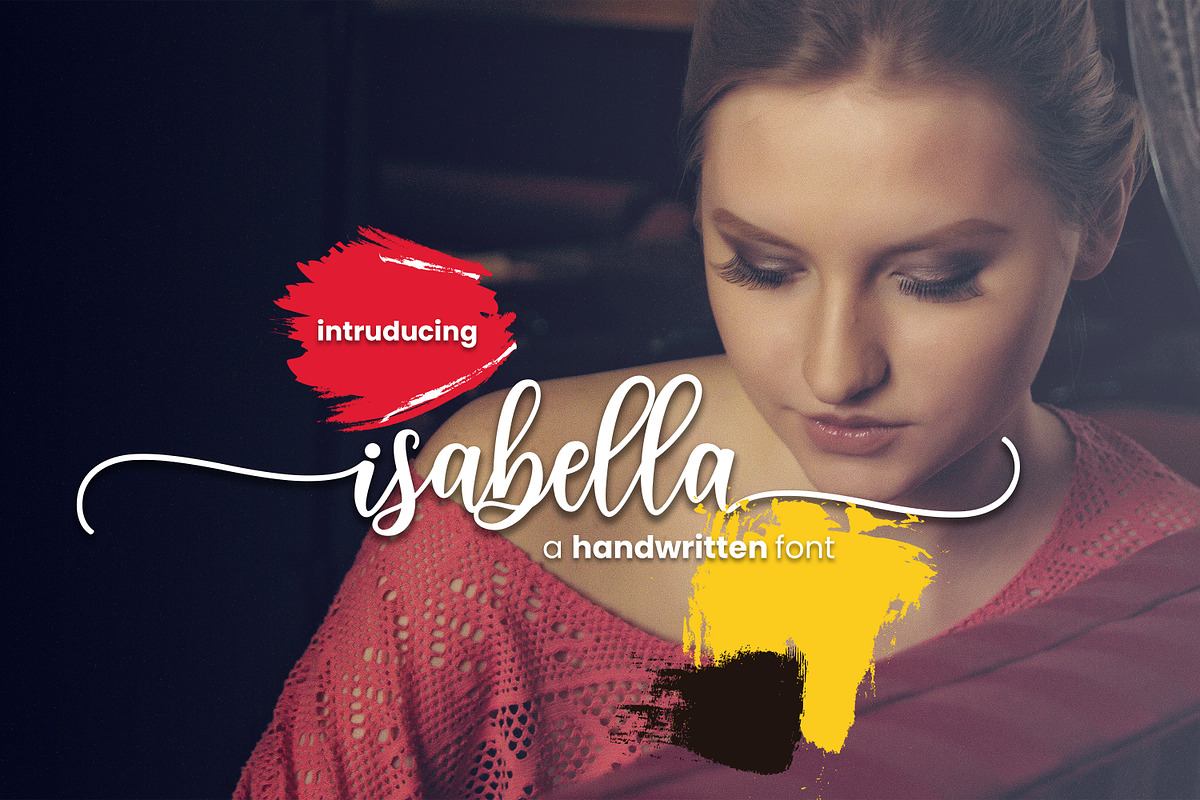
Please note, to use this font for commercial purposes, you must purchase the full version. Isabella Script is an elegant and sophisticated handwritten font that adds a personal, flowing touch to any design. With its graceful curves and stylish letterforms, this font is perfect for creating invitations, logos, branding, and other creative projects. Whether you're designing for a luxury brand, a wedding, or an elegant event, Isabella Script brings a refined and timeless look to your work. Test it out and enjoy free download access for personal use. Experience the beauty and charm of Isabella Script Font Free Download before purchasing the commercial license. Elevate your designs with the elegant, handwritten style of Isabella Script.